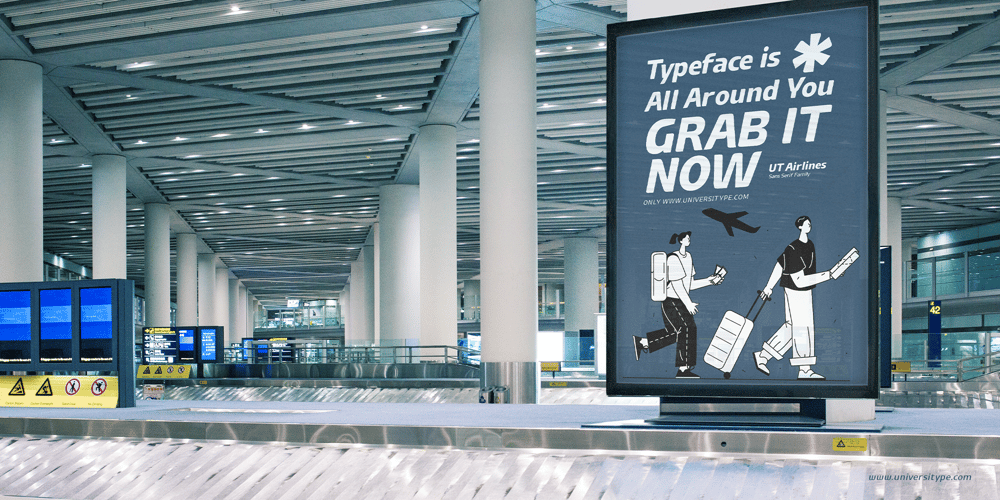
UT Airlines
UT Airlines font
UT Airlines Font Family was designed by Muh. Aswar and published by Universitype. UT Airlines contains 19 styles and family package options. The UT Airlines Font Family is a dynamic and versatile sans-serif typeface, meticulously designed by Universitype. Inspired by the elegance and engineering of airplanes, this font family brings a sense of modernity, precision, and fluidity to your design projects.Font Styles:The UT Airlines Font Family includes a comprehensive set of 18 styles, offering both upright and oblique options:- UT Airlines Thin- UT Airlines ExtraLight- UT Airlines Regular- UT Airlines Medium- UT Airlines SemiBold- UT Airlines ExtraBold- UT Airlines BlackEach weight is accompanied by its corresponding oblique version, allowing for a versatile typographic experience.Design Inspiration:Inspired by the sleek lines and aerodynamic curves of modern aircraft, the UT Airlines Font Family encapsulates the spirit of aviation. The design process involved careful sketching and refining of glyphs, drawing inspiration from various airplane elements, such as the wings and tail fins. This meticulous approach ensures that each character maintains a balance of form and function, making the font ideal for both digital and print applications.Features:- Versatile Use: Perfect for branding, editorial design, web design, and advertising.- Comprehensive Styles: Offers a range of weights and oblique styles to suit any design need.- Modern Aesthetic: Inspired by the sleek and dynamic forms of airplanes, providing a contemporary look.- High Legibility: Designed for clarity and readability, ensuring your text stands out.Usage:The UT Airlines Font Family is suitable for a wide array of projects, including but not limited to:- Corporate Branding- Editorial Layouts- Web Design- Advertising Campaigns- Packaging Design- SignageElevate your design projects with the UT Airlines Font Family by Universitype. With its modern aesthetic and versatile range of styles, this typeface is designed to meet the demands of today’s creative professionals. Whether you’re crafting a bold headline or creating a sophisticated body text, UT Airlines ensures your content takes flight with elegance and precision.